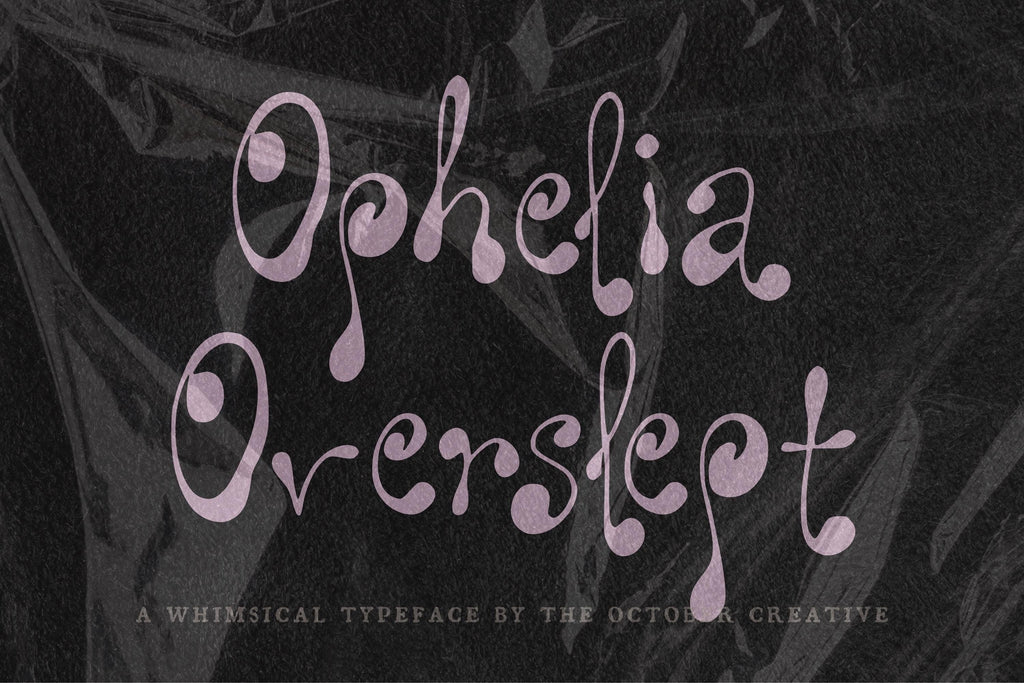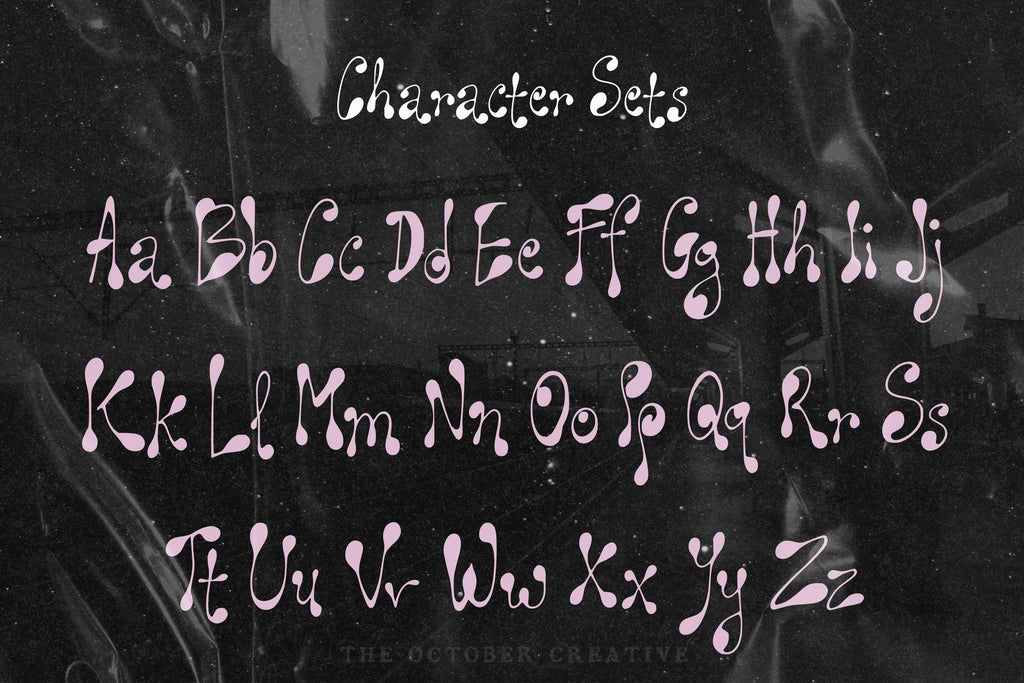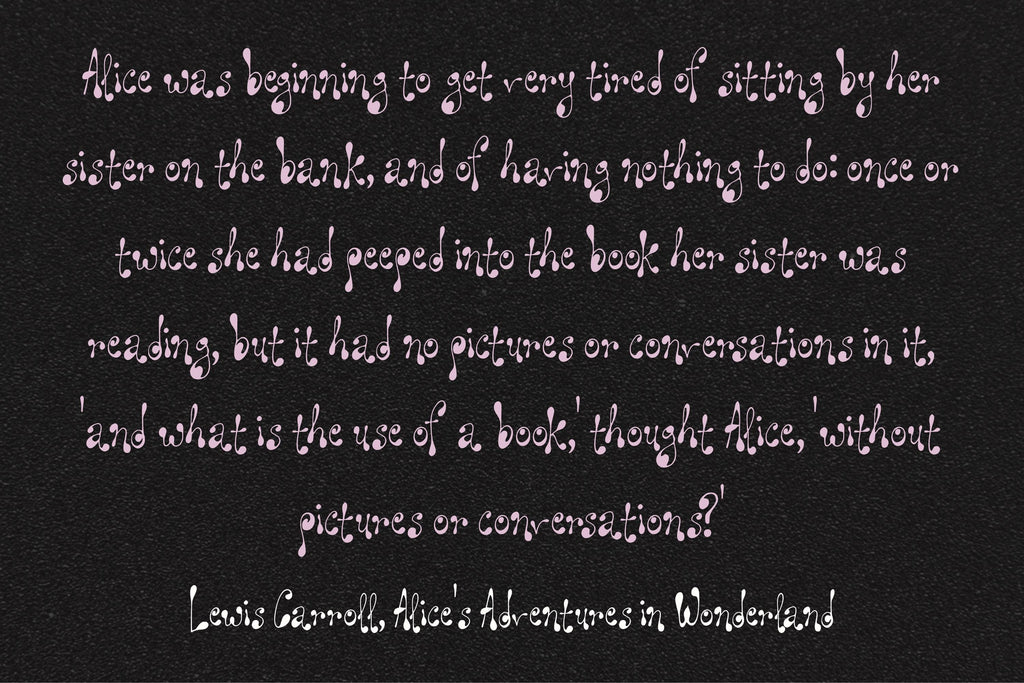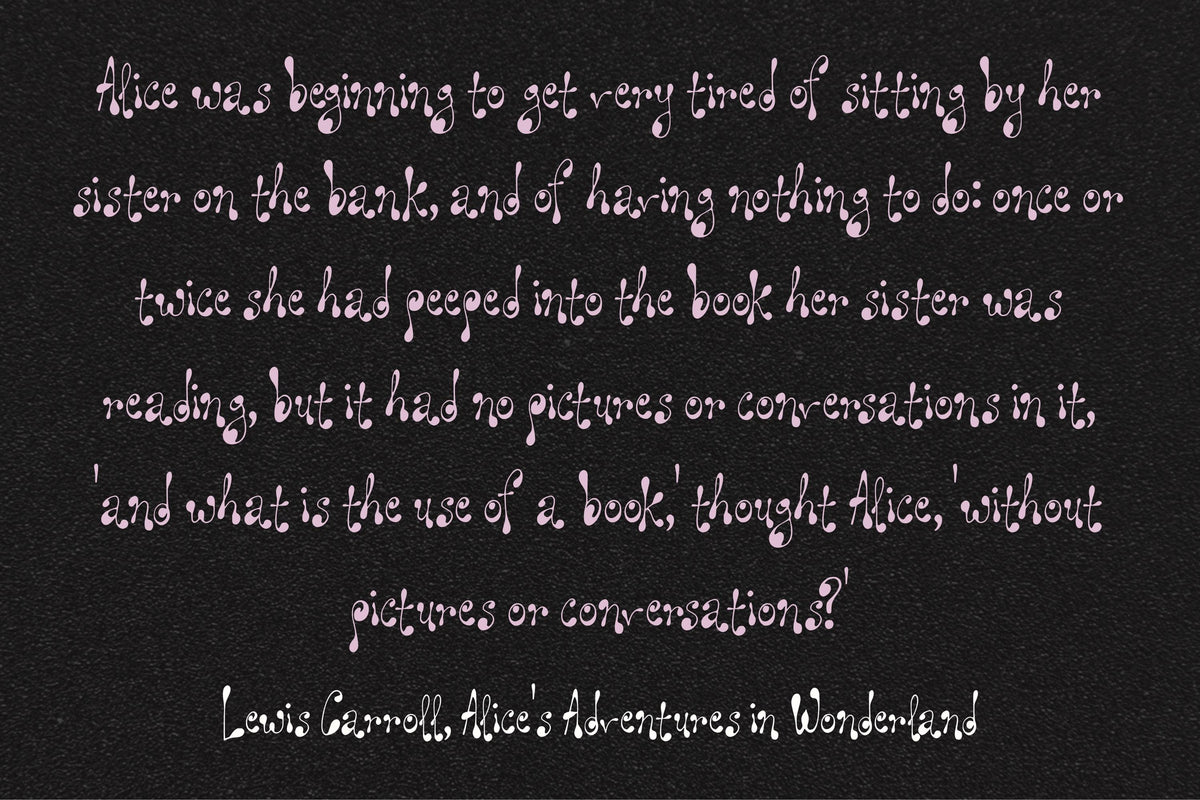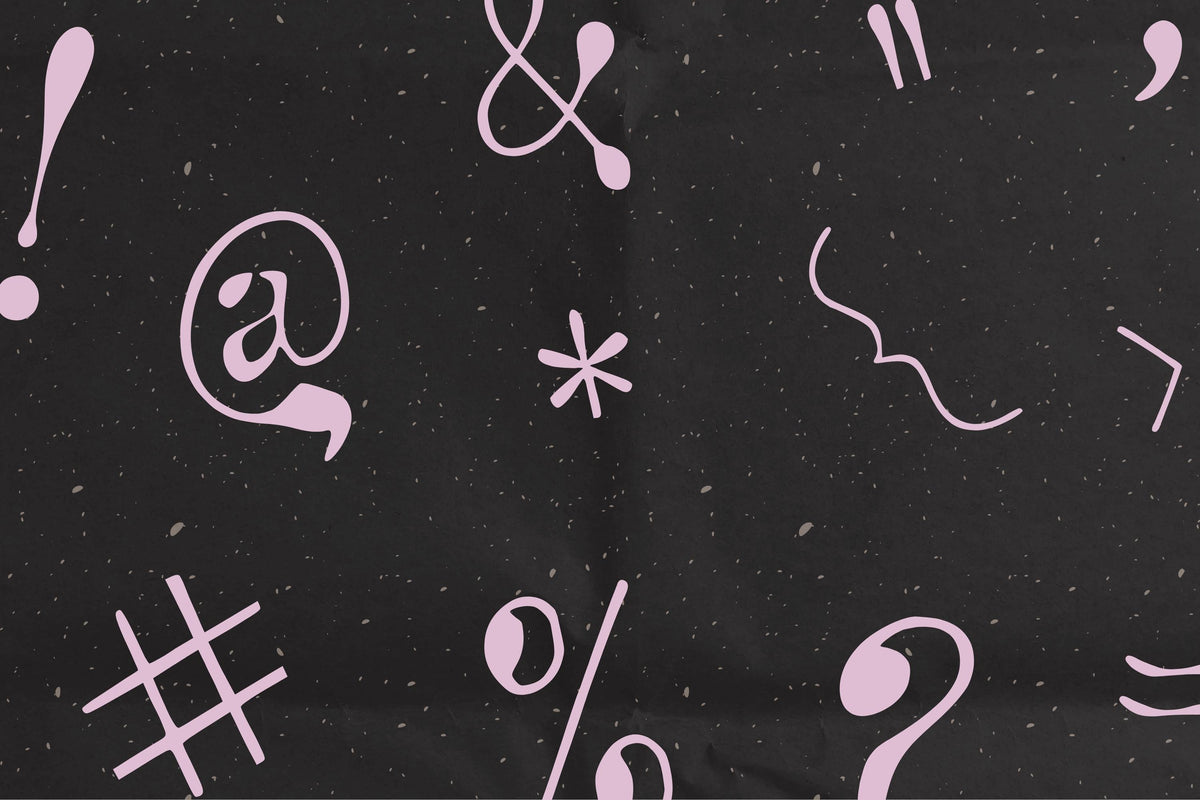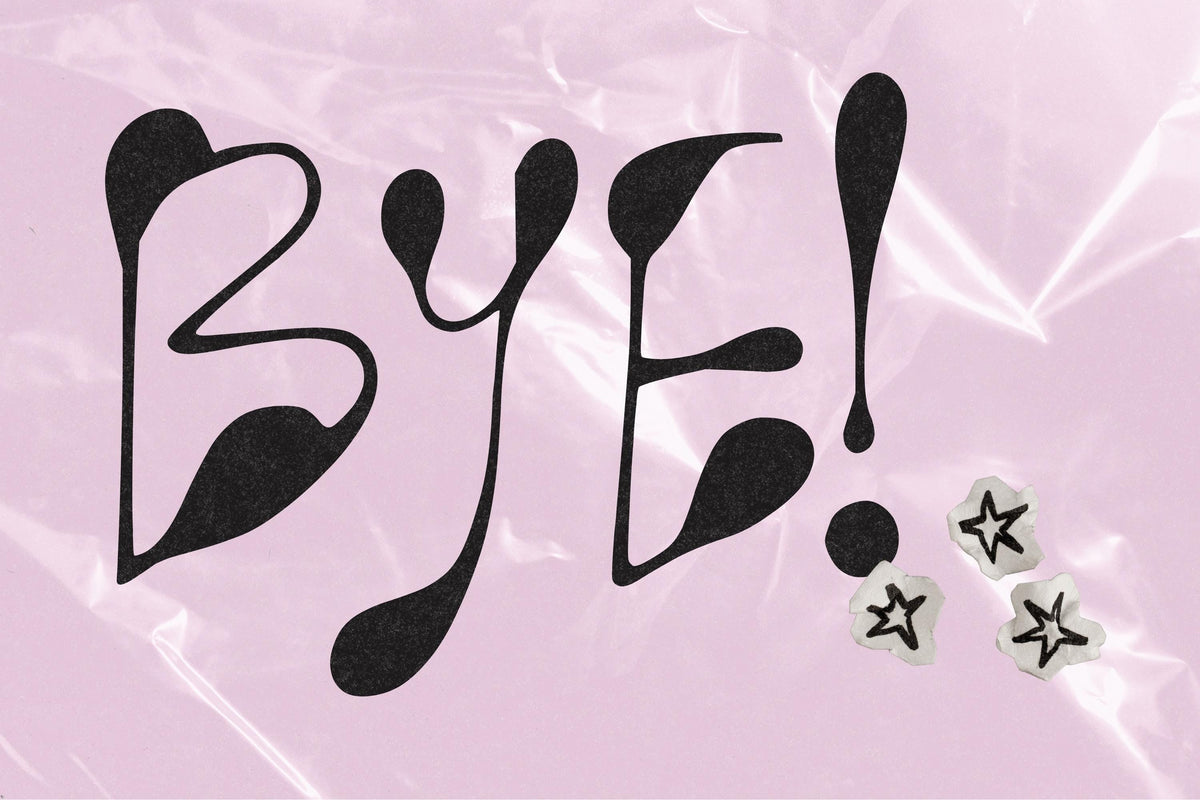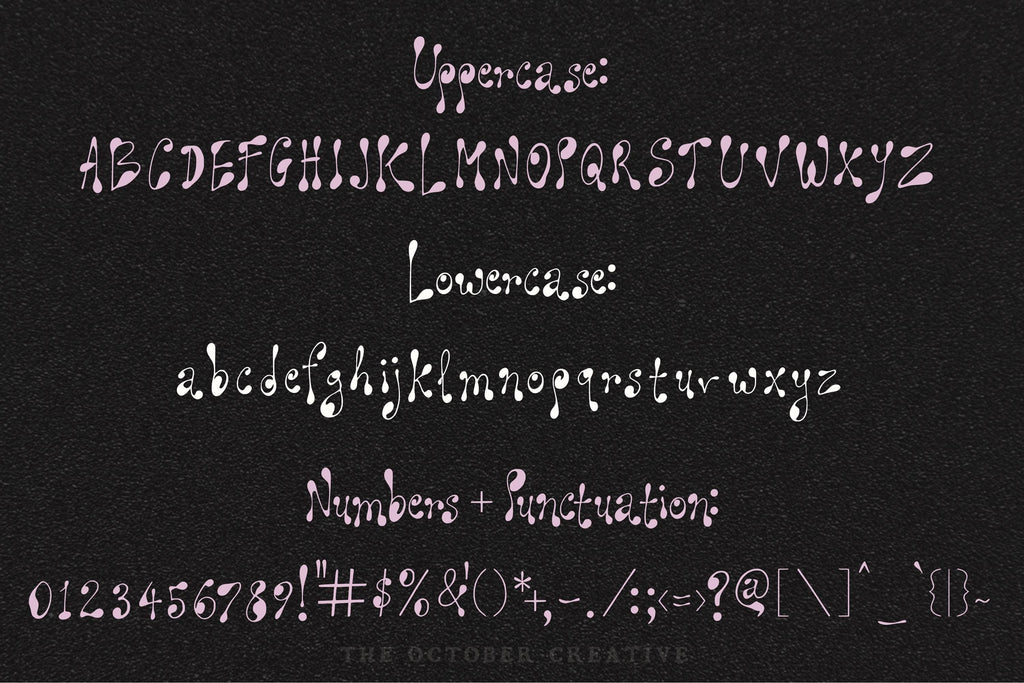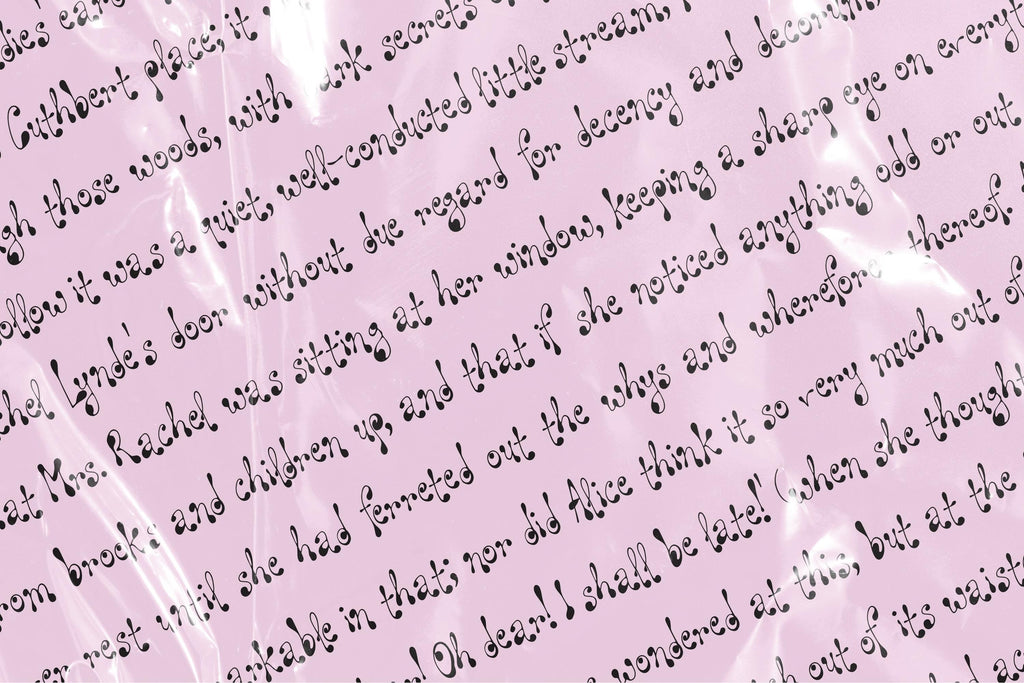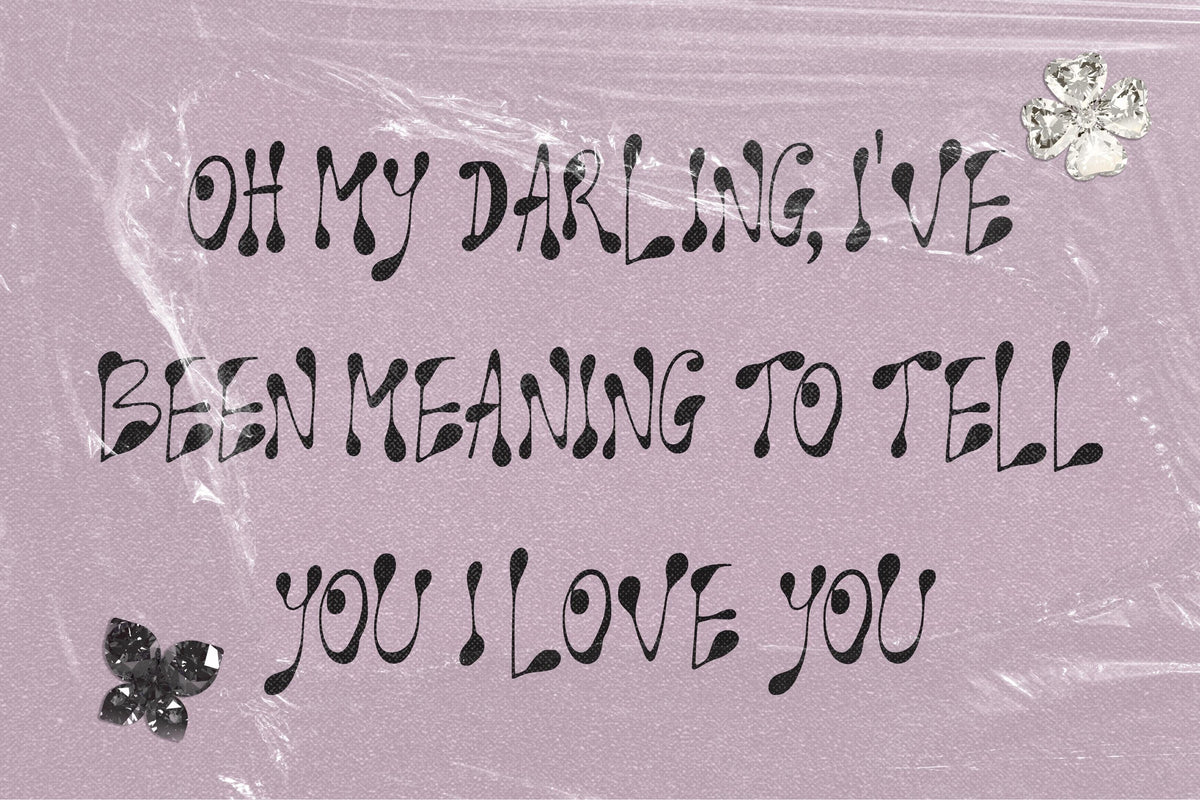
Ophelia Overslept Font
Ophelia Overslept gives a short phrase big, rounded 70s curves and a cheerful bounce. Try it on album artwork, party invitations, or a favorite saying you want to turn into a print.
- One style: Ophelia Overslept Regular